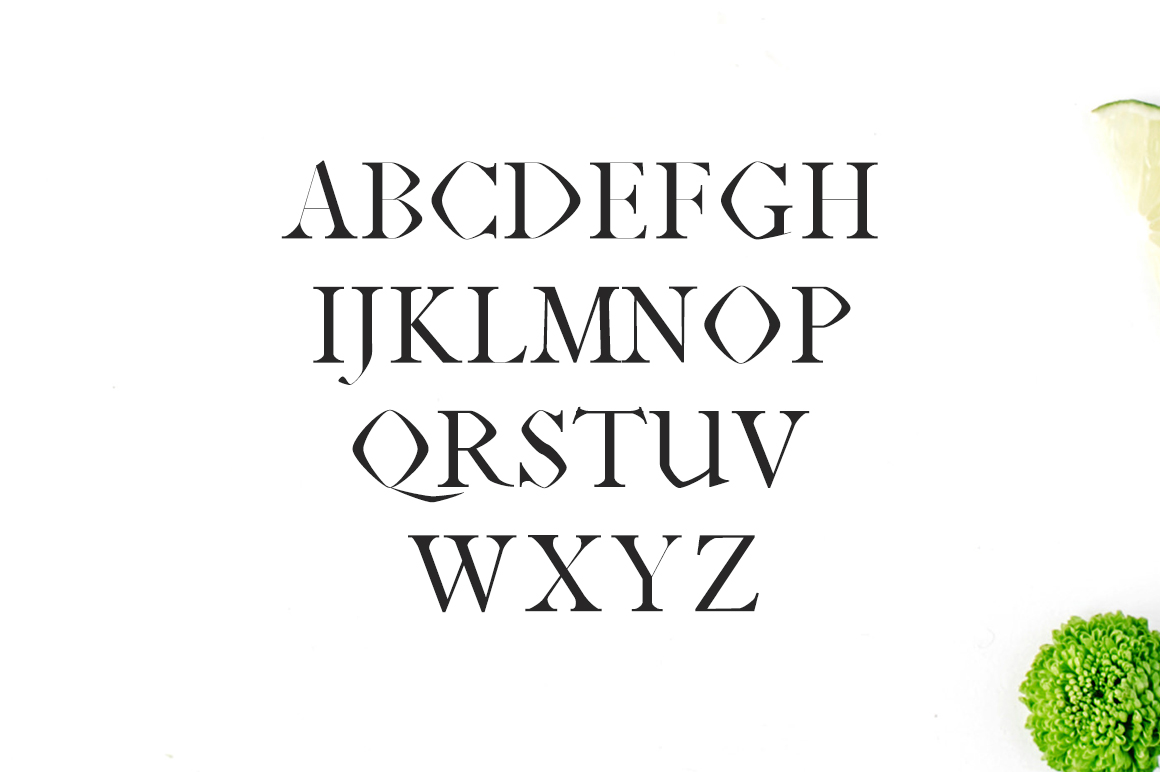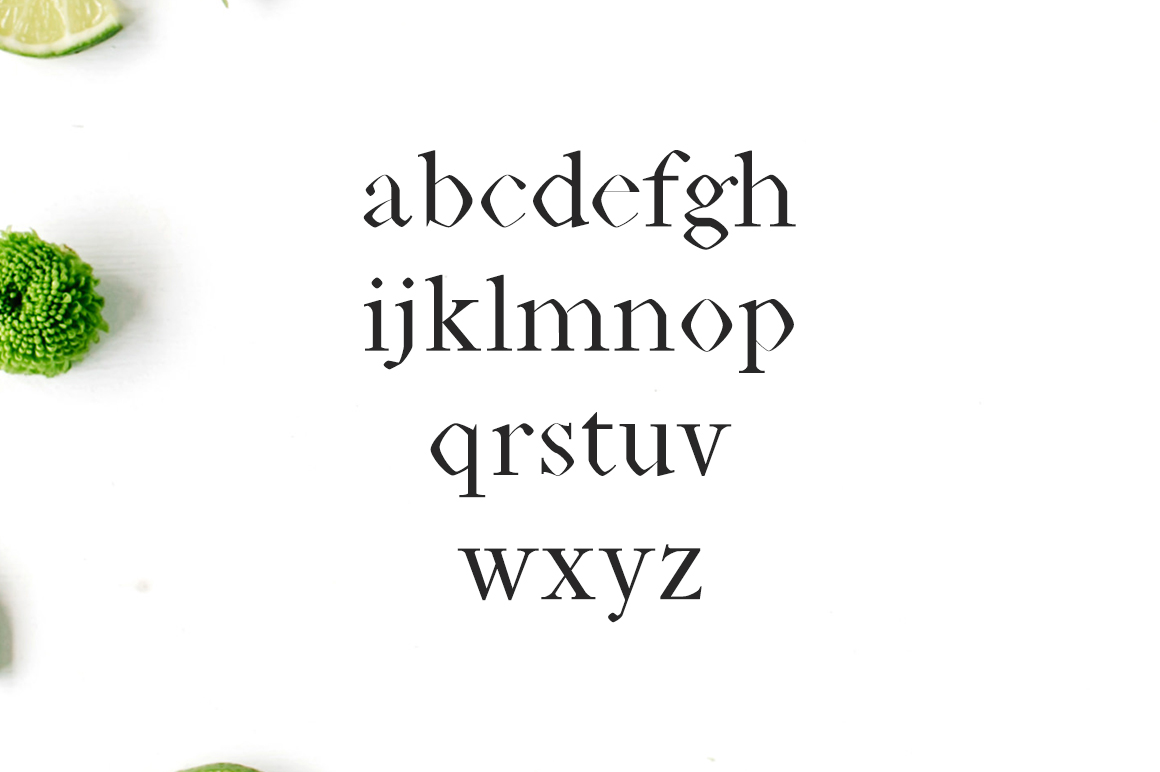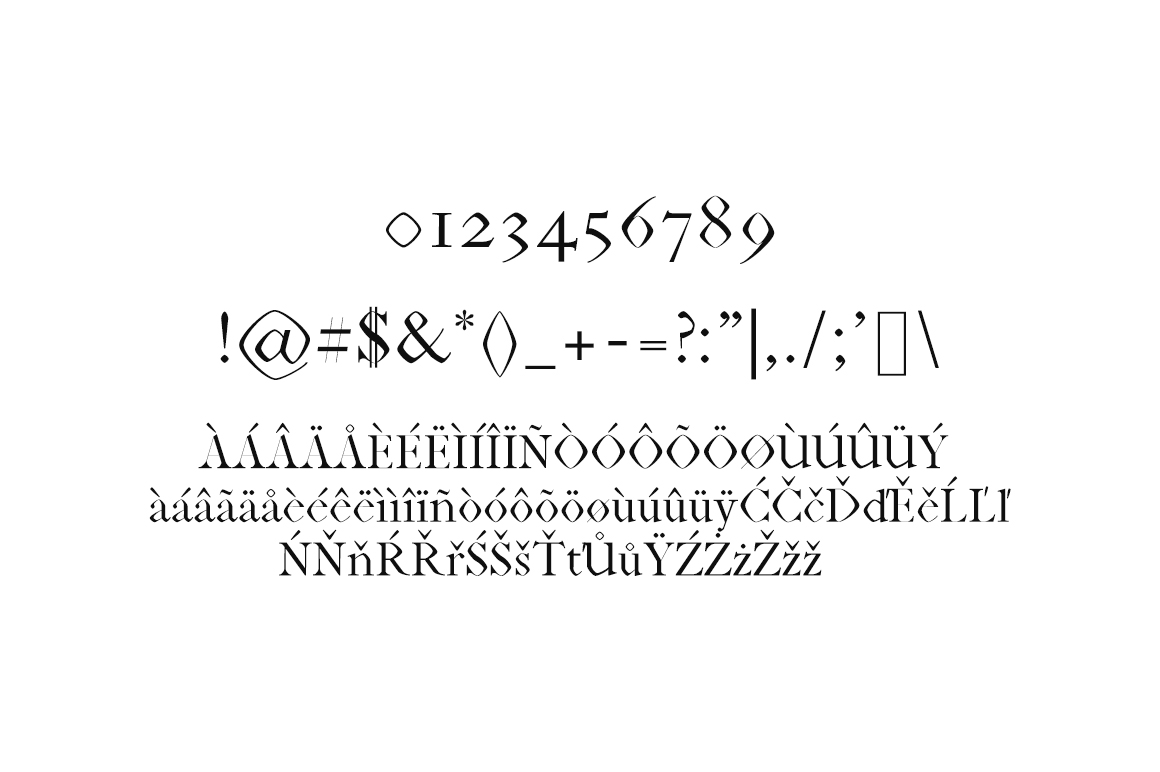
Introduction to Janecia Font
Add the ultimate classic appeal to your designs with Janecia, a beautiful serif font that packs a punch.
This typeface is reminiscent of classic Greek lettering, all the while staying completely legible and tasteful Janecia, a beautiful serif font, is now available for download today.